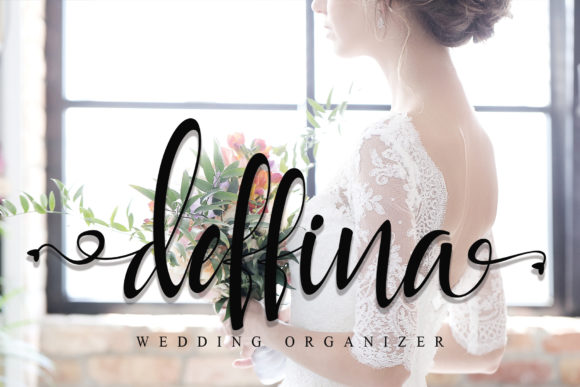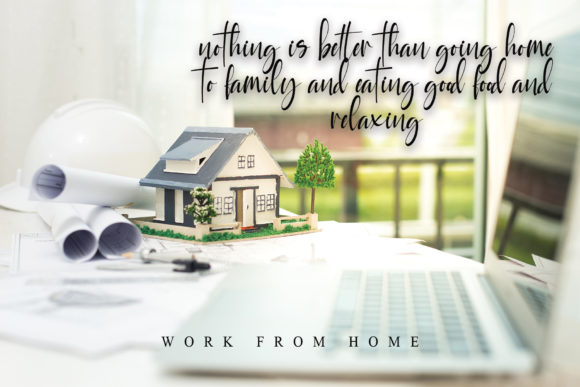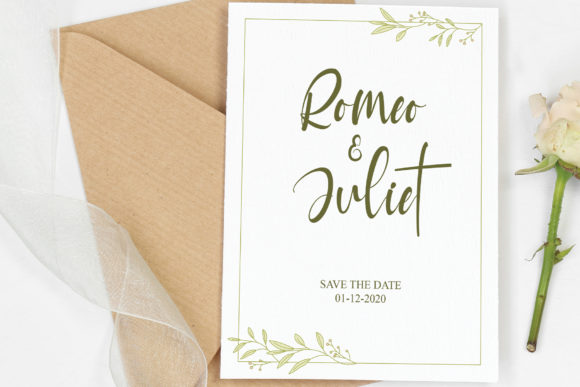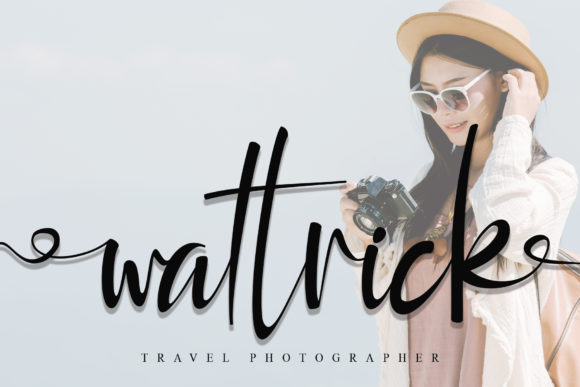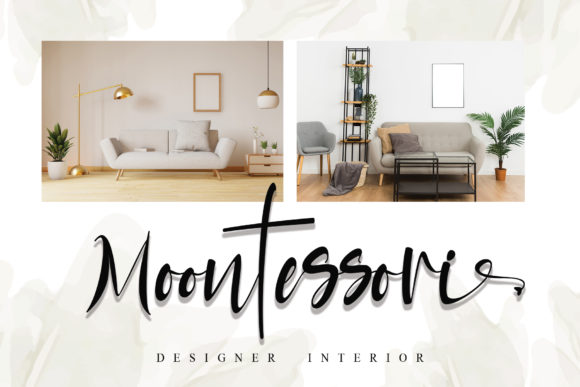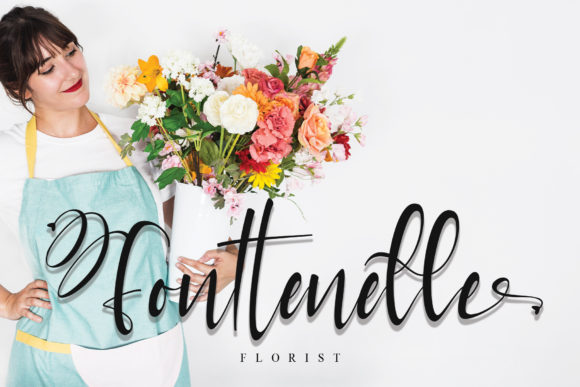
Introduction to Rayya Font
Have you ever stared at a blank page, feeling the urge to unleash your creativity, but struggling to find the perfect design resource? The blank page can be intimidating, but with the right tools, it can become a canvas waiting to be transformed into a masterpiece. This is where the Rayya Font comes in – a modern calligraphy font that’s sure to spark your creativity.
As a designer, you know how crucial it is to have a high-quality font that can elevate your projects and leave a lasting impression. With the Rayya Font, you’ll have access to a wealth of special features, including alternate glyphs and ligatures, that will make your designs truly unique. Plus, with a transparent background and PUA encoding, you can easily access all the cute glyphs and swashes to give your project that extra oomph.
Whether you’re working on a creative project or just want to add a touch of elegance to your Instagram posts, the Rayya Font is an invaluable resource that’s sure to inspire you.
Key Features of Rayya Font
- High-quality font with a transparent background, ideal for creative projects that require a touch of elegance.
- Designed with a focus on high-resolution display, suitable for printing and digital use at resolutions up to 300 DPI.
- Unique characteristics include a mix of modern and traditional elements, making it perfect for a variety of creative projects.
- Available in multiple sizes, from 12 to 72 points, allowing for flexible use in different design contexts.
Honest Review: Rayya Font
I recently had the chance to work with the Rayya Font, and I must say it’s been a fantastic addition to my design resources. The high quality of this font is immediately noticeable, especially when used on a transparent background. It’s perfect for creative projects that require a touch of elegance.
Here are some things that work well with the Rayya Font:
- ✨ The font is highly customizable, allowing for a wide range of creative possibilities.
- ✨ The high quality of the font ensures that it looks great on both digital and print materials.
- ⚠️ The font may not be suitable for projects that require a bold or loud aesthetic.
- ⚠️ Some users may find the font too elegant or refined for certain design styles.
Overall, I’m really impressed with the Rayya Font. It’s a great addition to any designer’s toolkit, and I’ve already started incorporating it into my creative projects. If you’re looking for a high-quality font for your next design project, I highly recommend giving it a try.
Getting the Most Out of Rayya Font
To get the most out of the Rayya Font, use it in conjunction with other design elements, such as images and shapes, to create visually appealing designs. Experiment with different font sizes, colors, and alignments to achieve the desired look.
The Rayya Font is commonly used in creative projects, such as logo design, branding, and marketing materials. It is also used in digital design, such as website design and mobile app design, where a high-quality font with a transparent background is required.